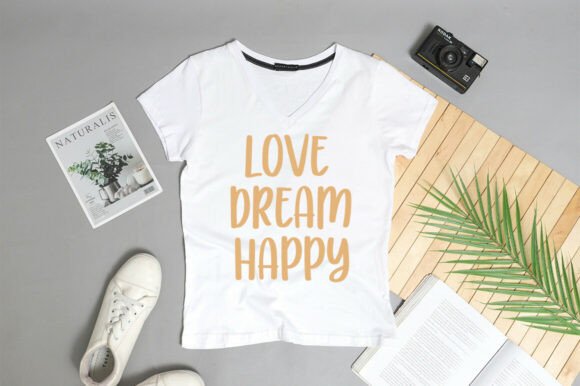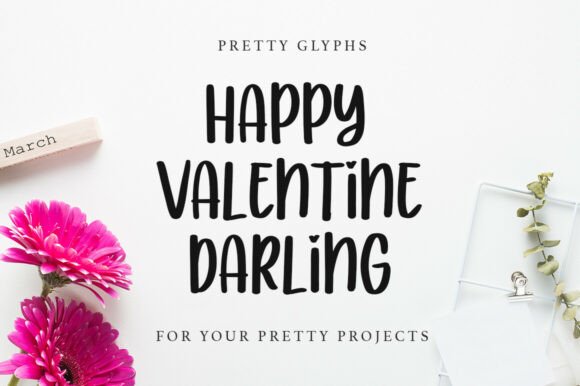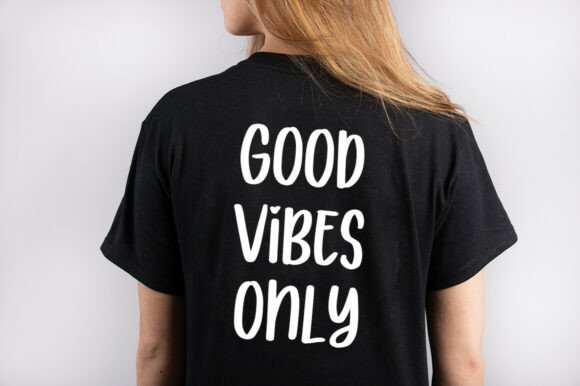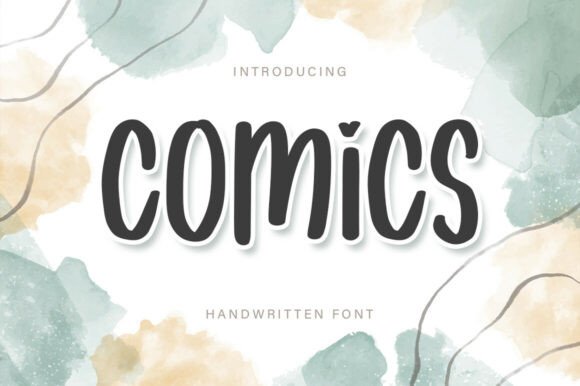
The Comics Font: A Tribute to the Golden Age of Graphic Storytelling
The Comics font is a digital typeface that pays homage to the classic comic books of the past, evoking the nostalgia and playfulness of a bygone era. This font is designed to capture the essence of the golden age of graphic storytelling, with its smooth, pillowy strokes and slightly asymmetrical shapes that mimic the natural variations of a brush pen.
Design and Features
The Comics typeface is crafted to provide maximum readability and personality, making it an ideal choice for a wide range of design projects. Its unique features include:
- Smooth, pillowy strokes that give the font a soft and inviting appearance
- Slightly asymmetrical shapes that add a touch of playfulness and whimsy
- Hand-inked, expressive energy that brings a sense of joy and nostalgia to every character
Perfect for Speech Bubbles, Titles, and Branding Projects
The Comics font is specifically designed for use in speech bubbles, action-packed titles, and playful branding projects. Its lively and approachable feel makes it perfect for:
- Children’s books and educational materials
- Vibrant social media campaigns and online content
- Boutique streetwear lines and fashion branding
- Any project that requires a fun, energetic, and engaging visual identity
Tips for Using the Comics Font
To get the most out of the Comics font, try the following design tips:
- Layer the font with bright, high-contrast colors to create a bold and eye-catching effect
- Add subtle drop shadows to give the font a 3D appearance that leaps off the page
- Pair the Comics font with clean, minimalist sans-serifs to create a striking visual contrast
Why the Comics Font Stands Out
The Comics font stands out from other digital typefaces due to its unique blend of nostalgia and playfulness. Its ability to evoke the golden age of graphic storytelling makes it a compelling choice for designers and crafters looking to add a touch of personality to their work.
Pairing the Comics Font with Other Typefaces
The Comics font pairs exceptionally well with clean, minimalist sans-serifs, allowing the “bouncy” rhythm of the Comics typeface to serve as your primary visual element. Some popular pairing options include:
- Open Sans: A clean and modern sans-serif font that provides a striking contrast to the playful Comics font
- Lato: A sleek and elegant sans-serif font that complements the Comics font’s energetic and playful feel
- Montserrat: A geometric sans-serif font that adds a touch of sophistication and urban flair to the Comics font
The Comics font is a versatile and engaging digital typeface that captures the essence of the golden age of graphic storytelling. Its unique features, lively personality, and wide range of design applications make it an ideal choice for designers and crafters looking to add a touch of nostalgia and playfulness to their work. Whether you’re designing a children’s book, creating a vibrant social media campaign, or launching a boutique streetwear line, the Comics font is sure to bring a sense of joy and energy to your project.